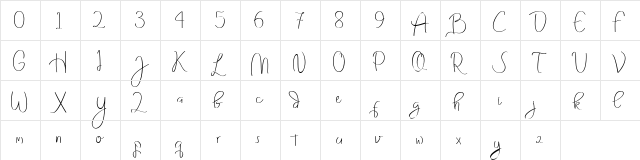
Grizelle Reguler
Design Context for Grizelle Typeface
Grizelle is a composed and adaptable typeface that performs quietly and consistently across a wide range of design contexts.